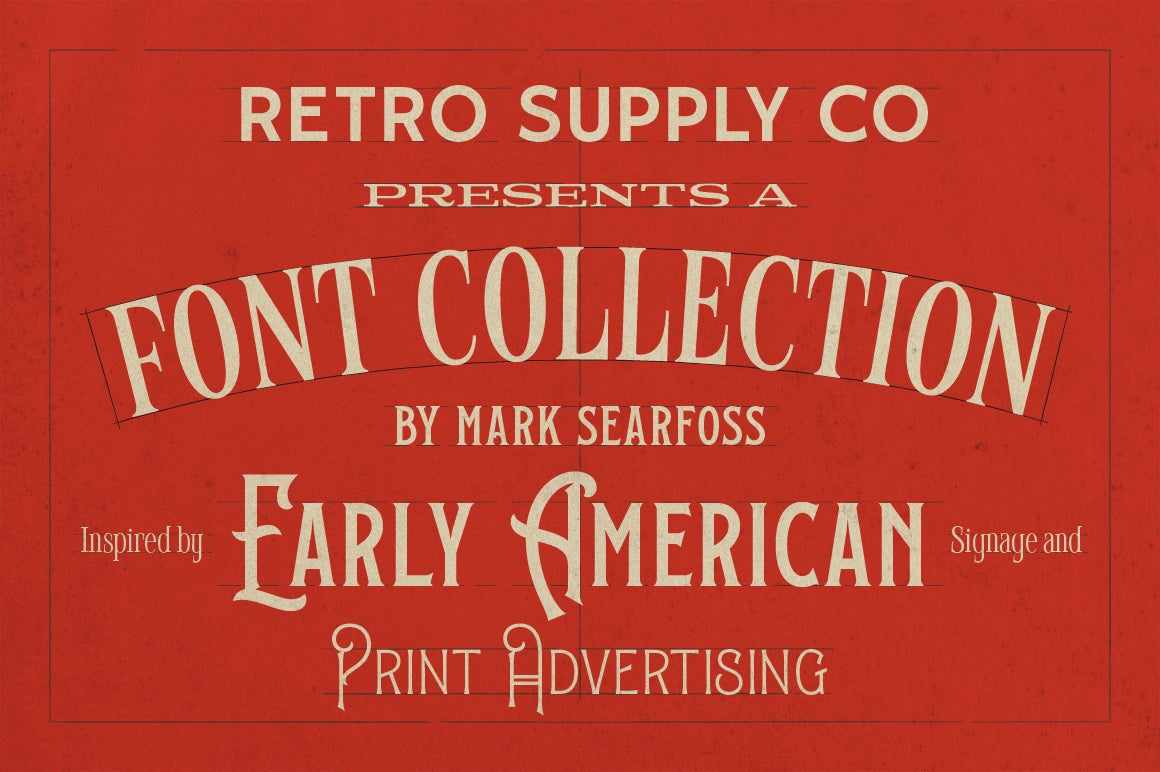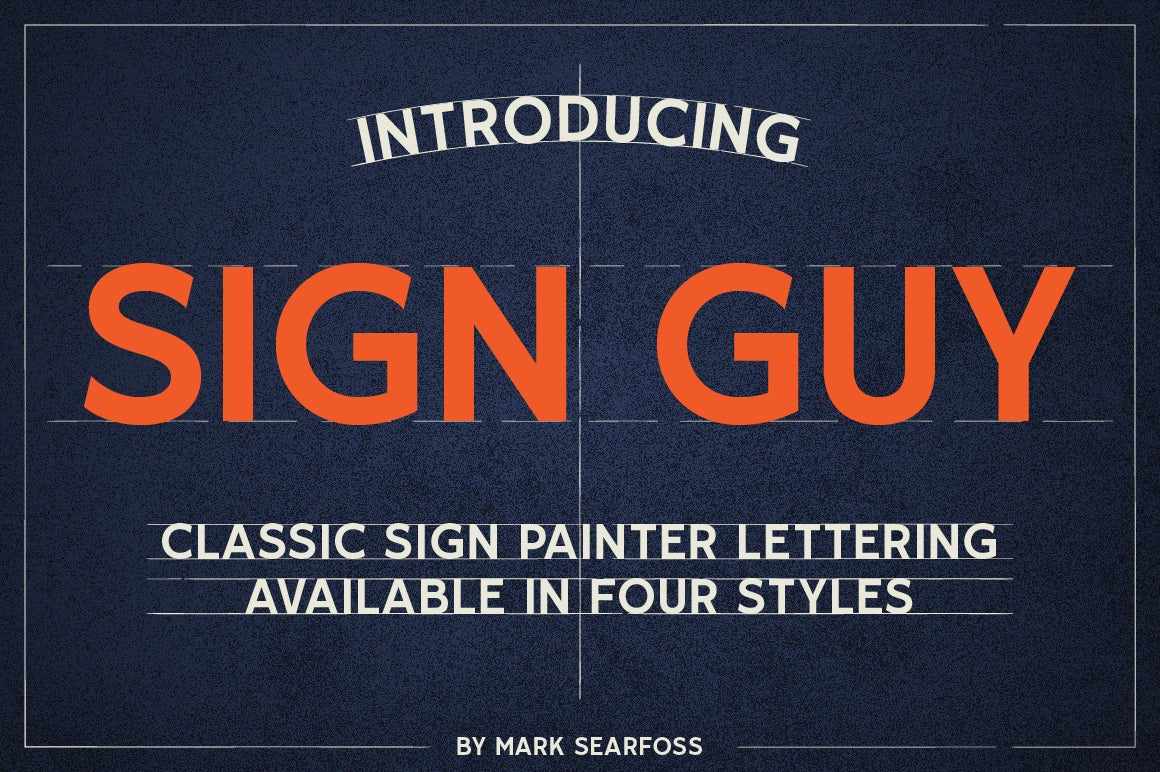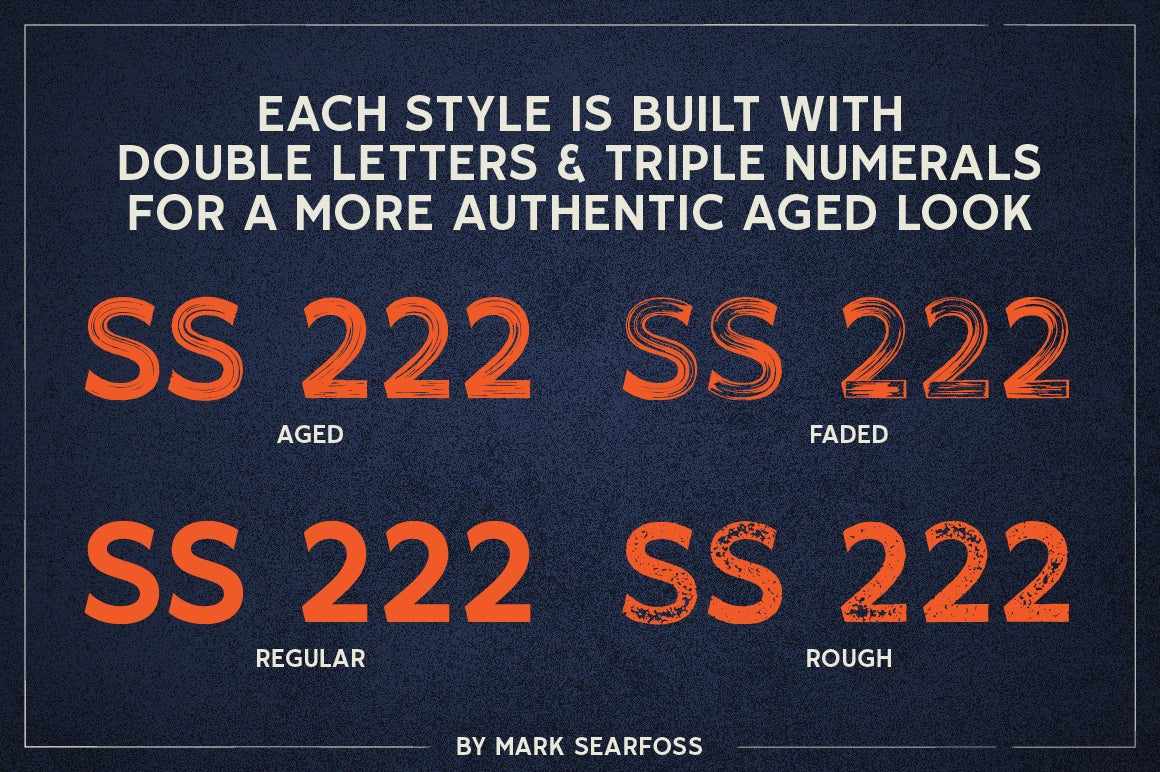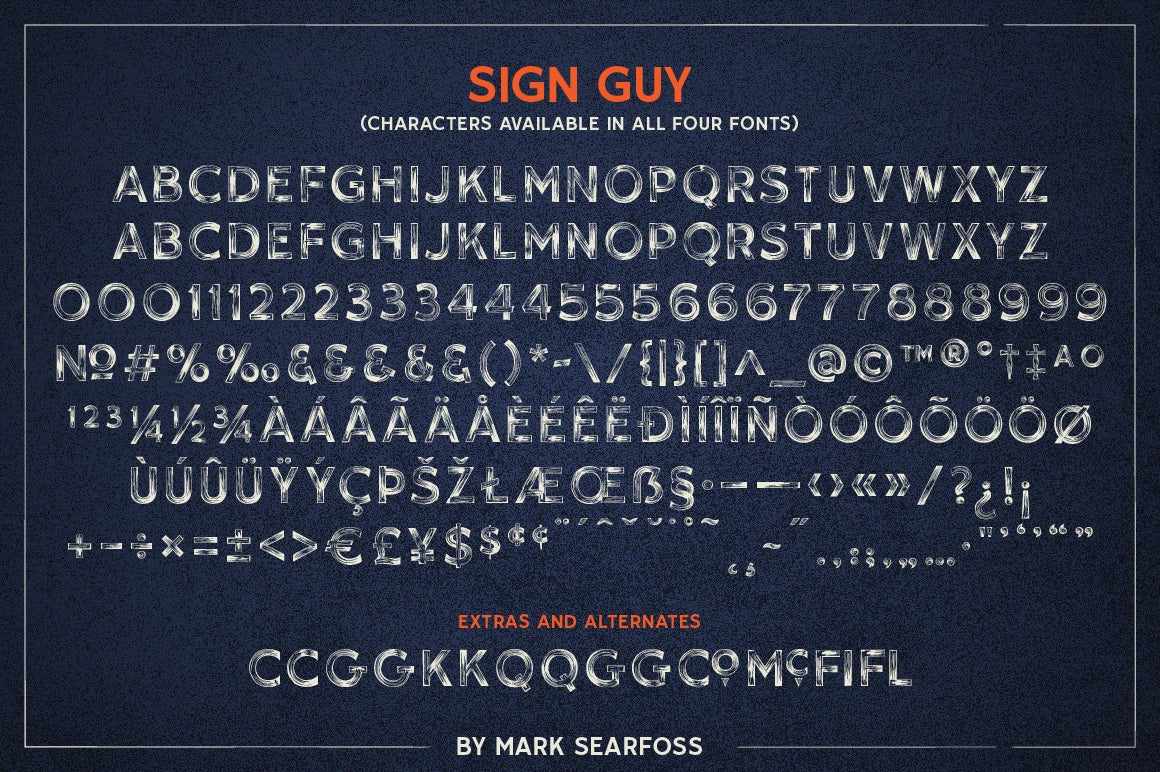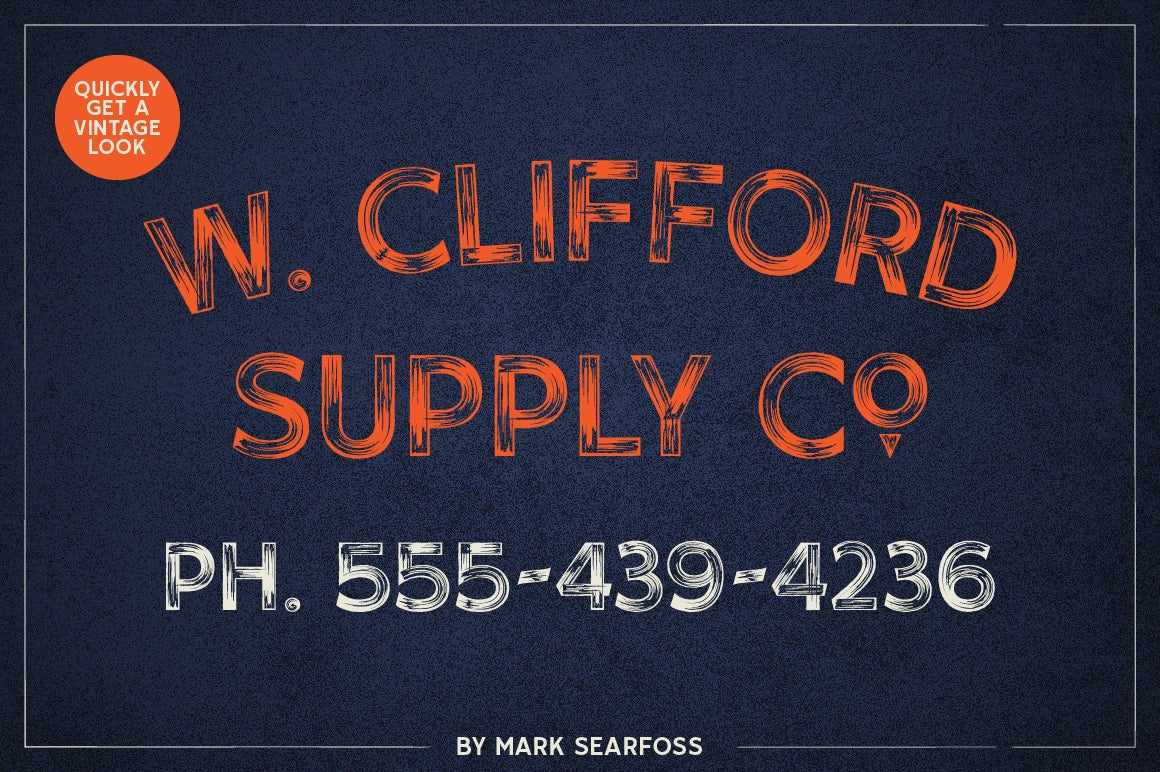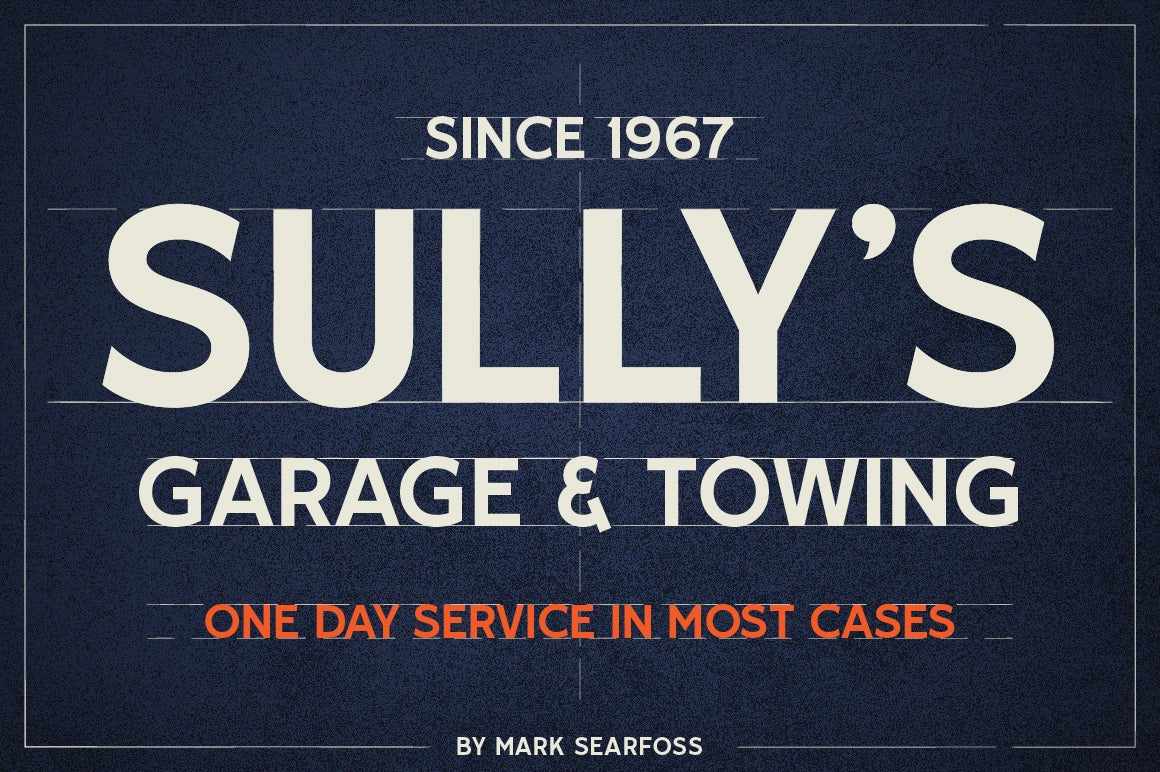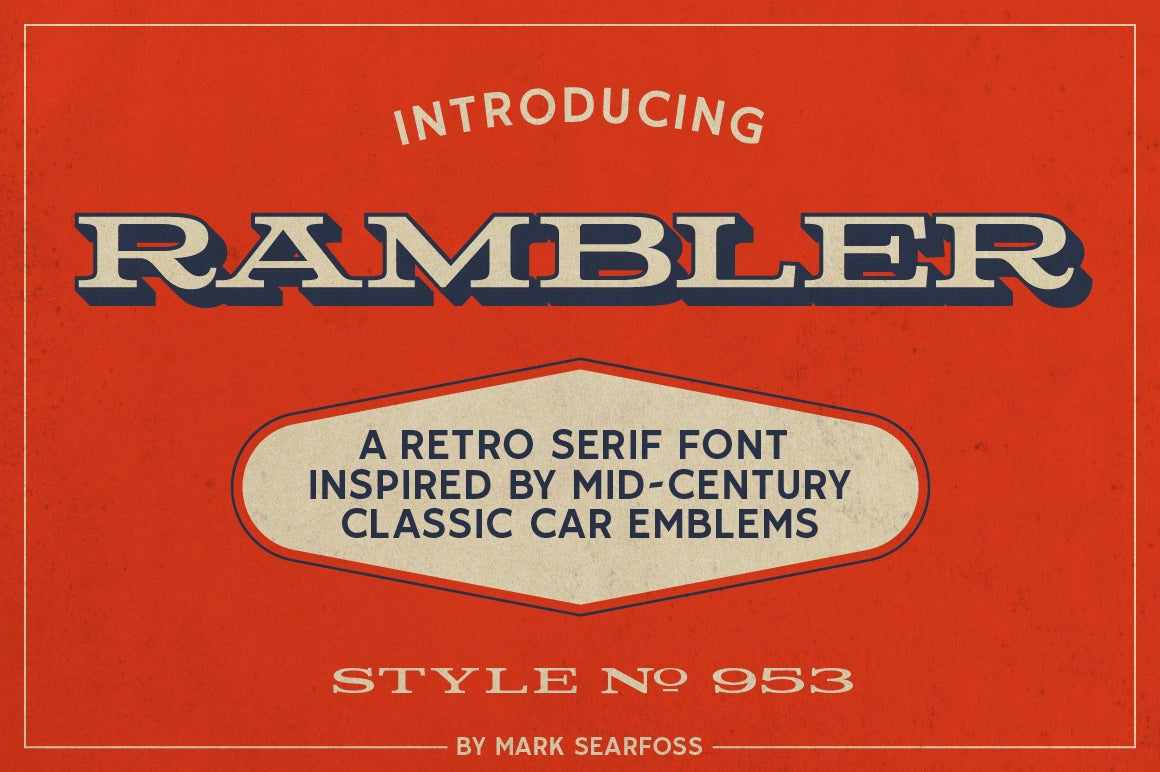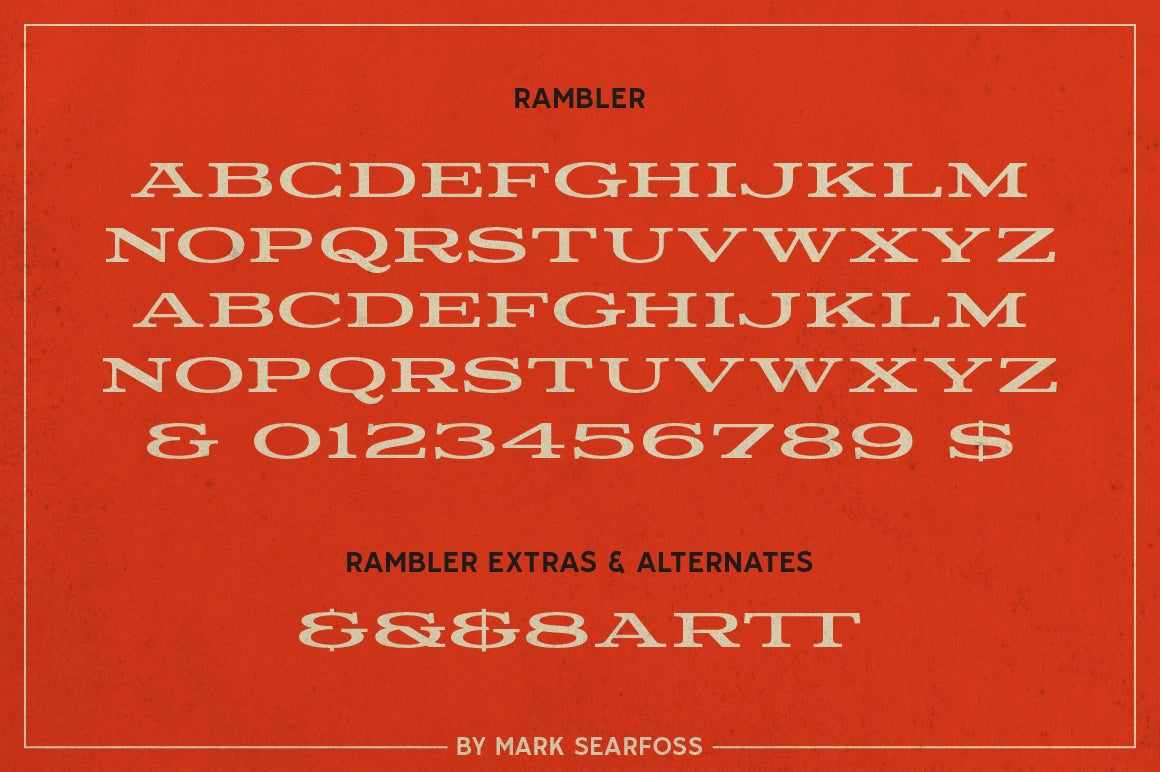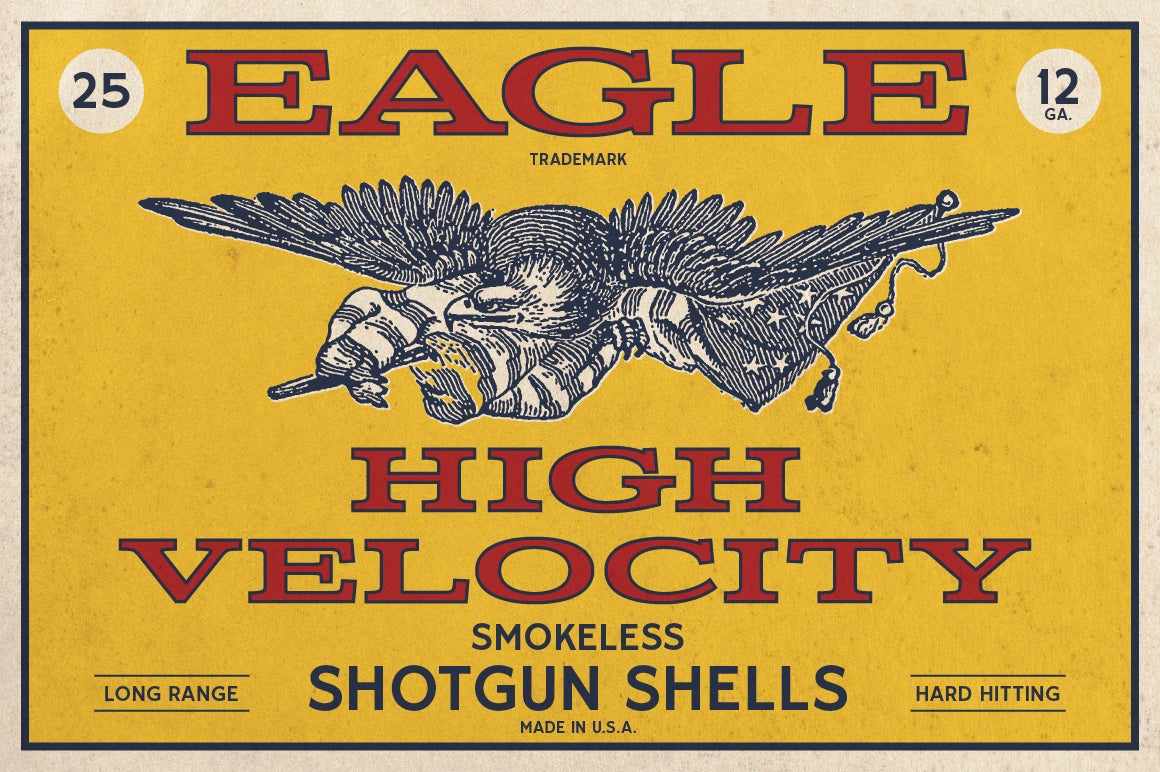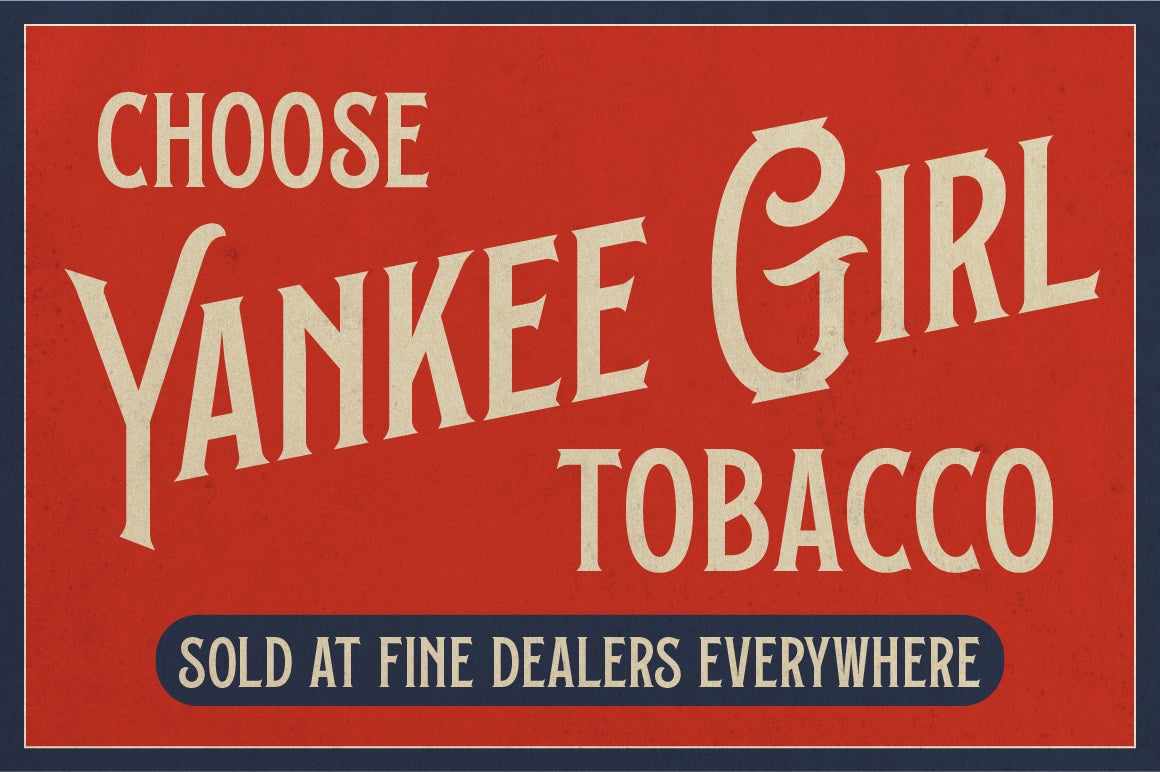
A collection of fonts inspired by early American signage and print production.
Inspired by early American signage and print production, the Sign Maker's Font Bundle is a collection of typefaces that represent centuries of classic sign font choices.
- 7 typefaces created by professional font designer Mark Searfoss (13 fonts in total, including variations).
- Inspired by vintage signs and advertising, including window lettering, truck billboards, farm equipment advertising, bottle labels, cigar boxes, liquor bottles, and coffee cans.
- Includes useful extras like OpenType features, aged versions, alternate characters, and title characters (features vary by typeface).
SIGN GUY
Sign Guy is a classic sign painter’s typeface based on Speedball’s Showcard Single Stroke Gothic.
It features four different fonts, with three using varying levels of distressing to mimic the weathered and worn look you might see on an old shop truck or outdoor sign.
Sign Guy includes variations between upper and lowercase letters and numerals. Utilizing OpenType features each font automatically adjusts double characters and triple numbers to create a more natural aged look.
Sign Guy effortlessly recreates early Americana hand-painted sign lettering. This easy-to-read style is great for creating everything from vintage look signage to more modern designs.
PORTER
Porter is a bold, easy-to-read font pair that’s perfect for replicating vintage, period designs, signage, logos, and product labels.
With flared bases and large, decorative uppercase letters, this font recreates the look of early American tobacco and cigarette advertising masterfully. Porter features numerous stylistic alternates to quickly add custom looks to your designs.
Porter Cut features flat top and bottoms on the rounded characters that were commonly used in many early 1900s product advertising.
MILLSTONE
Millstone is a vintage, lightweight, and condensed font with contemporary flair.
Inspired by hand lettering on an early American farm equipment booklet that featured short letters with wide, curled serifs.
To give a more modern update, the characters were condensed and given more balanced thick and thin strokes to enhance readability at a wide range of sizes.
GINGER ALE
Ginger Ale is a vintage, lightweight display font inspired by early American hand-lettered bottle labels and packaging.
Featuring a light serif and elegant curves, it’s great for logos, package design, book covers, and more.
And with 110+ stylistic alternates, Ginger Ale helps you quickly add a custom look to your designs.
BLUE RIDGE
Blue Ridge is a vintage and modestly ornate display typeface that invokes the styling of cigar and liquor packaging labels from late 1800s America.
It features a regular and fancy version with decorative capitals, old-style figures, and titling figures.
Use Blue Ridge to add instant style and glamour to your work.
WHITTEMORE
Whittemore is a vintage all caps typeface replicating the style of the Whittemore Brothers Shoe Polish advertising of the late 1800s and features two rounded serif fonts: regular and condensed.
Whether recreating early Americana signage, packaging, or making a contemporary logo with classic details, Whittemore will add instant style to your creations.